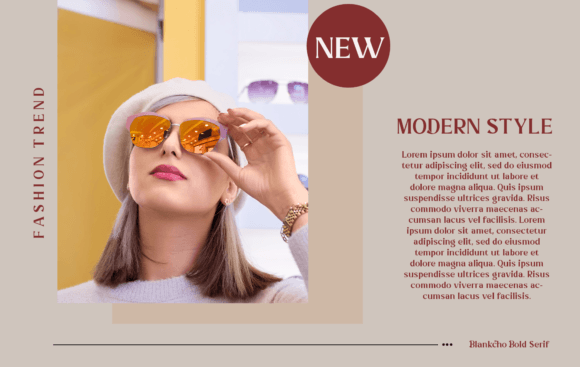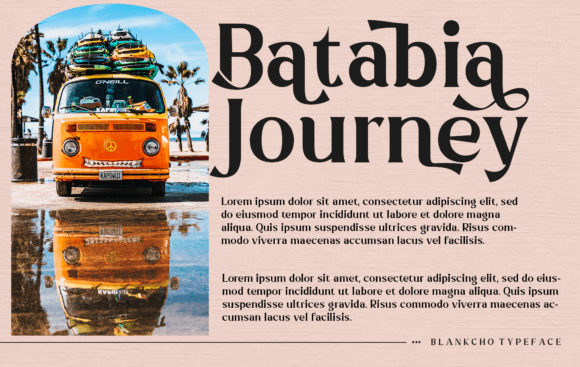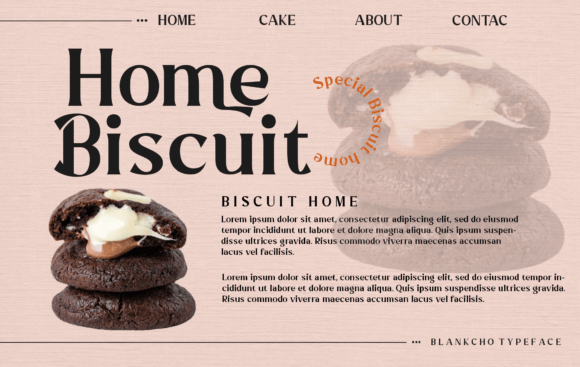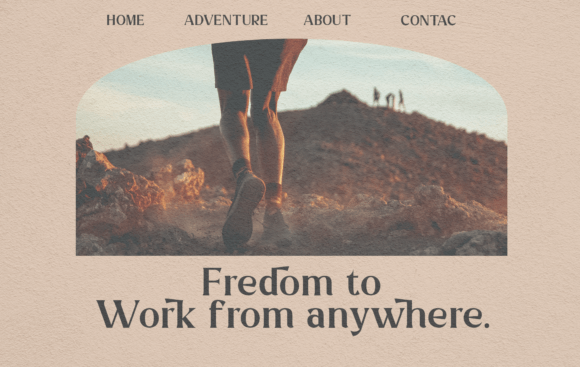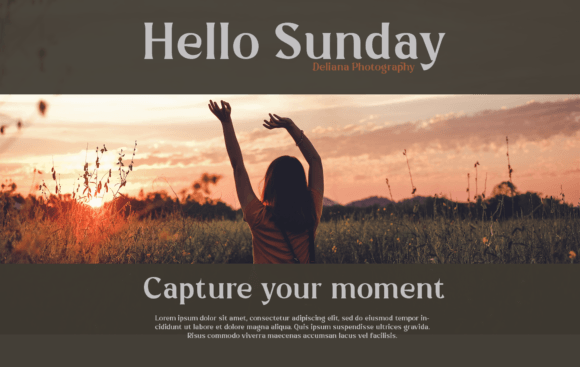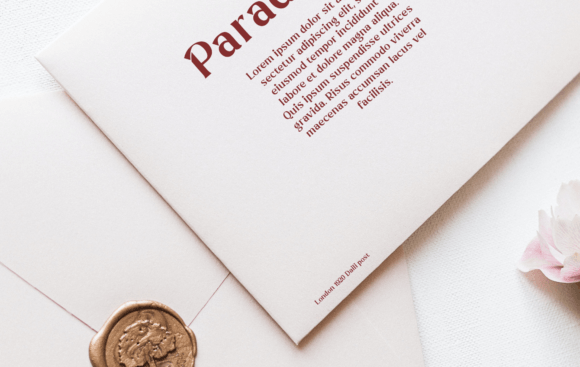
Introducing Blankcho Font: A Playfully Nostalgic Serif Font for Your Retro-Inspired Designs
Are you a designer or crafter looking to add a touch of nostalgia to your designs? Look no further than the Blankcho font! This charming serif font is designed to evoke a sense of playfully nostalgic charm, delivering an incredible vintage aesthetic that’s sure to captivate your audience. With Blankcho, you can add a special retro touch to any design idea you can think of, from branding and packaging to posters and digital media.
The Characteristics of Blankcho Font
Blankcho font boasts a unique set of characteristics that make it perfect for designers and crafters seeking a retro-inspired look. Some of its notable features include:
- Serif design: Blankcho’s serif design gives it a classic, timeless feel that’s reminiscent of vintage typography.
- Playful flair: The font’s playful flair adds a touch of whimsy and fun, making it perfect for designs that require a lighthearted, nostalgic feel.
- Vintage aesthetic: Blankcho’s vintage aesthetic is sure to transport your audience back in time, evoking memories of a bygone era.
Uses for Blankcho Font
Blankcho font is incredibly versatile, making it suitable for a wide range of design applications. Here are some ideas to get you started:
- Branding and packaging: Use Blankcho to create eye-catching logos, labels, and packaging that stands out on store shelves.
- Posters and flyers: Add a touch of nostalgia to your posters and flyers with Blankcho’s vintage aesthetic.
- Digital media: Use Blankcho in your digital media, such as social media graphics, email headers, and website designs.
- Crafting and DIY projects: Blankcho is also perfect for crafters and DIY enthusiasts looking to add a personal touch to their projects, such as handmade cards, scrapbooking, and journaling.
Tips for Using Blankcho Font Effectively
To get the most out of Blankcho font, here are some tips to keep in mind:
- Pair with modern fonts: Combine Blankcho with modern fonts to create a striking contrast that adds visual interest to your design.
- Experiment with colors: Try pairing Blankcho with bold, bright colors to enhance its vintage aesthetic.
- Use it sparingly: Use Blankcho sparingly to create emphasis and draw attention to specific elements in your design.
| Font Name | Blankcho Font |
| Author | Luhop Creative |
In conclusion, Blankcho font is a versatile and charming serif font that’s perfect for designers and crafters looking to add a touch of nostalgia to their designs. With its playfully nostalgic feel and vintage aesthetic, Blankcho is sure to captivate your audience and set your designs apart. So why wait? Download Blankcho font today and start adding a special retro touch to your designs!
Whether you’re a seasoned designer or a crafty DIY enthusiast, Blankcho font is sure to inspire your creativity and help you create designs that are truly one-of-a-kind. So go ahead, get creative, and show the world what you can do with Blankcho!